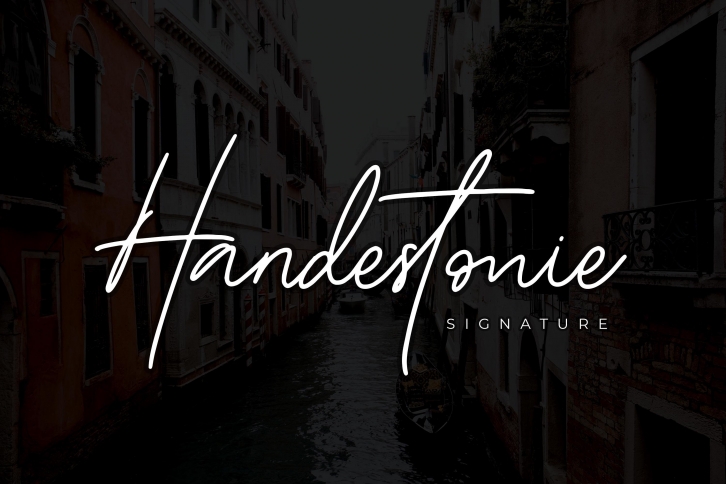
Handestonie is a great font that was designed by Almarkha Type. Imagine the amount of combinations you can create using this font! The archive is 19.3 MB and it was released on July 23, 2020. Handestonie looks beautiful on wedding invitations, greeting cards, logos, posters, labels, t-shirt designs, logos, business cards and is perfect for use in ink or watercolor works, fashion, magazines, packaging and food menus, children's books and more!